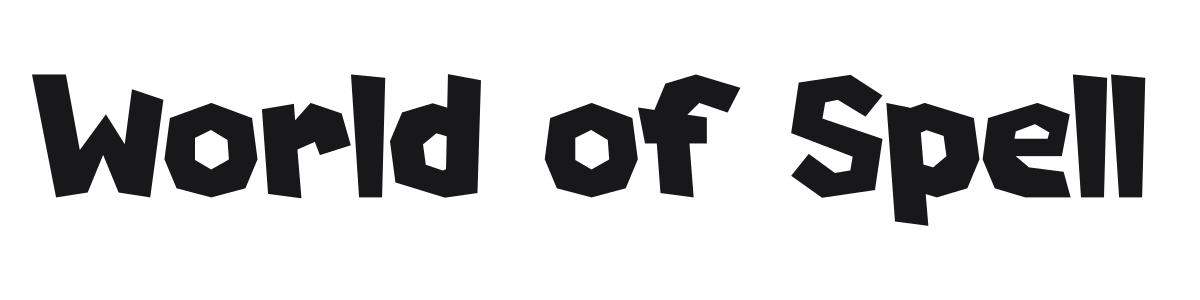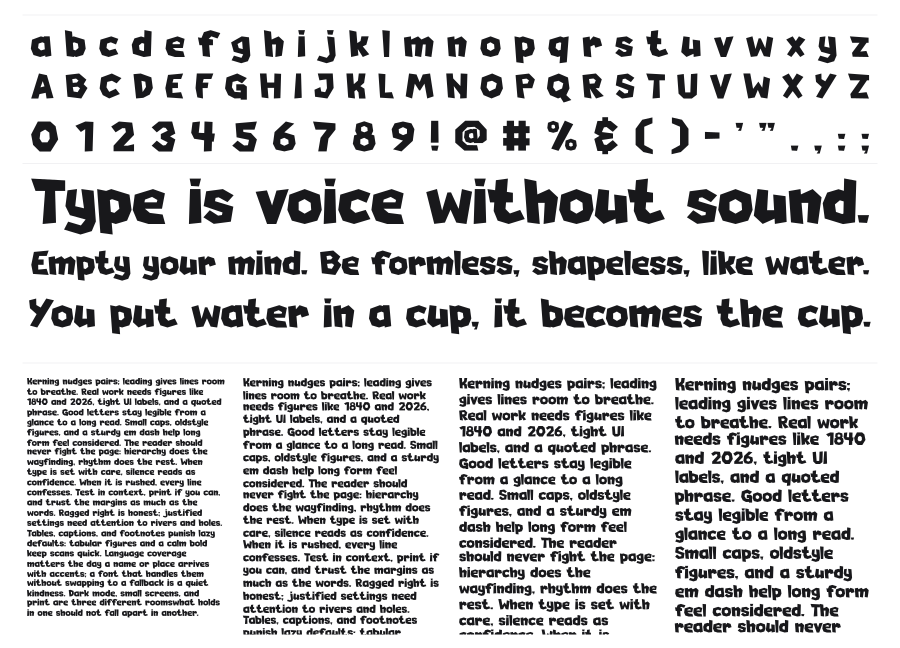
World of Spell
World of Spell is a heavy display font with chunky angular strokes and rough-cut notch details that evoke hand-carved wood or stone lettering from a fantasy world. The irregular edges and slightly uneven construction give it a handmade warmth despite its bold weight. It sits naturally in gaming titles, comics, and action-themed branding.